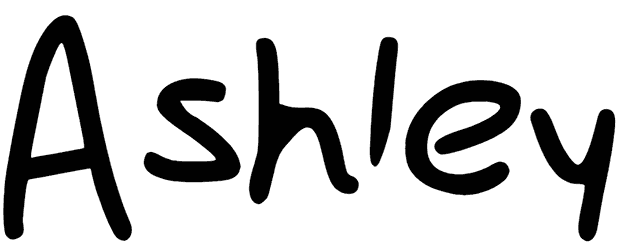
Ashley Font
If you are tired of formal and repetitive fonts, we would like to advise you to check out the RB archive and take the best possible advantage of a lovely script font similar to the Ashley.
Since this handwritten font comes with crooked letters and a wavy style, it can bring a fresh breath to all of your projects, such as storybook illustrations, magazines, stickers, flyers, or social media posts. Also, it carries a sense of dynamic, personalization, and jauntiness.